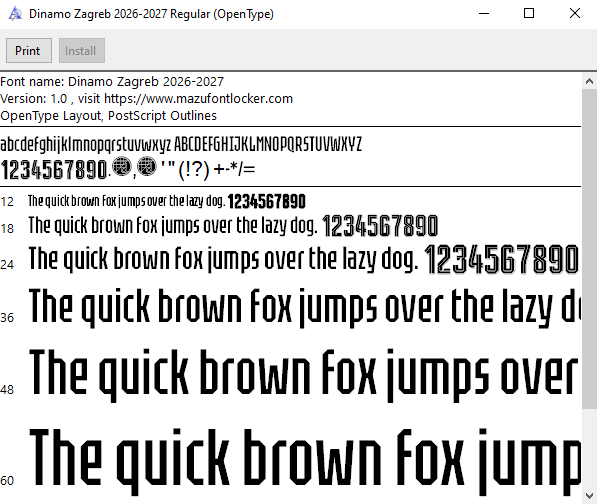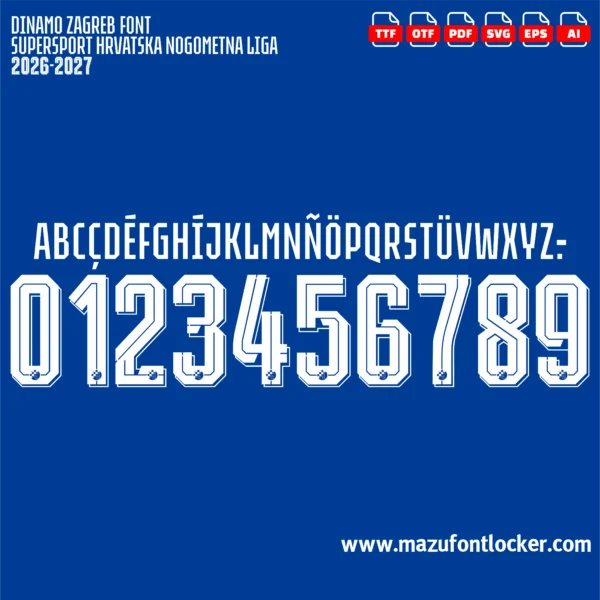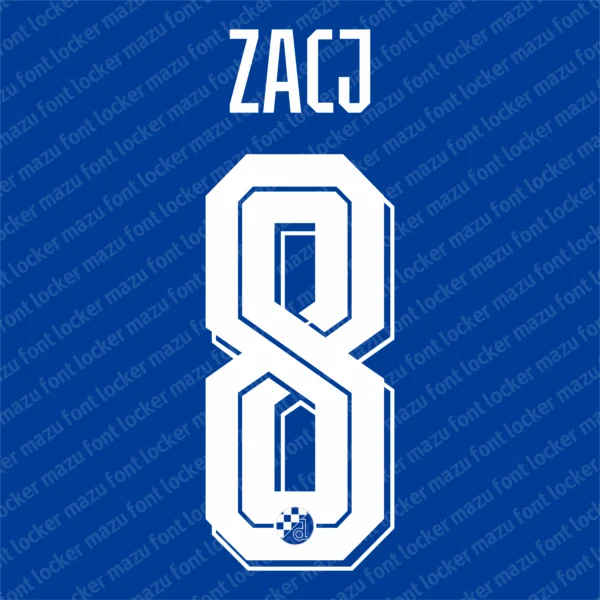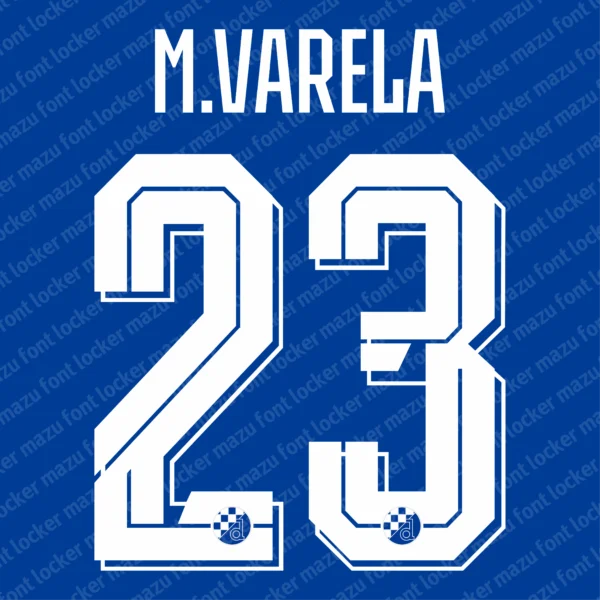
Dinamo Zagreb 2026-2027 Font Vector – Epic Modri Blues Masterpiece
This font captures the bold, fearless, electric, and ultra-premium lettering that perfectly embodies Dinamo Zagreb’s iconic Croatian pride fused with the ruthless, passionate, and unstoppable spirit of The Blues — delivering unmatched intensity, raw emotion, elite craftsmanship, and pure Blue-White fire for premium jersey mockups, epic football designs, spectacular sports visuals, standout fan creations, and professional branding projects.
Dinamo Zagreb 2026-2027 Font Vector – Authentic Modri Typeface
The Dinamo Zagreb 2026-2027 Font Vector is a premium typeface that accurately recreates the official match lettering worn by Dinamo Zagreb during their projected dominant 2026-2027 season. This high-quality vector font kit captures the bold, modern, and distinctive typography that reflects the pride, attacking flair, and rich football heritage of the Croatian giants.
Designed for professional designers and passionate Dinamo supporters, the Dinamo Zagreb 2026-2027 Font Vector delivers perfect authenticity for creating realistic jersey mockups, fan merchandise, matchday posters, social media graphics, and classic football content. It pairs beautifully with Dinamo’s legendary blue and white kits featuring the iconic club crest.
Why Choose Dinamo Zagreb 2026-2027 Font Vector
This font stands out because of its sharp vector precision and strong club identity. Every letter and number is crafted to match the exact style used on the players’ shirts during the anticipated 2026-2027 campaign. Whether you are creating professional kit templates or celebrating Dinamo’s golden era, the Dinamo Zagreb 2026-2027 Font Vector delivers an authentic match-ready appearance.
The letterforms in the Dinamo Zagreb 2026-2027 Font Vector are bold, clean, and highly readable. The characters feature balanced proportions and sharp detailing that create a professional appearance on both home and away jerseys while maintaining the modern football aesthetic of the 2026-2027 era.
The numerals feature strong geometric construction with excellent visibility and balance. Every number is carefully vectorized to ensure flawless scaling across digital graphics, print projects, and jersey applications.
• Full uppercase A–Z and numbers 0–9 in authentic Dinamo Zagreb 2026-2027 style
• Special Dinamo crest glyph – Press the “:” (colon) symbol to insert the Dinamo crest
• Includes authentic styling inspired by official 2026-2027 season match shirts
The Dinamo Zagreb 2026-2027 Font Vector is an independently designed typeface package. It is carefully crafted to replicate the official shirt lettering style used during the 2026-2027 season. This font kit is ideal for football-themed creative projects, fan artwork, jersey concepts, and professional sports graphics.